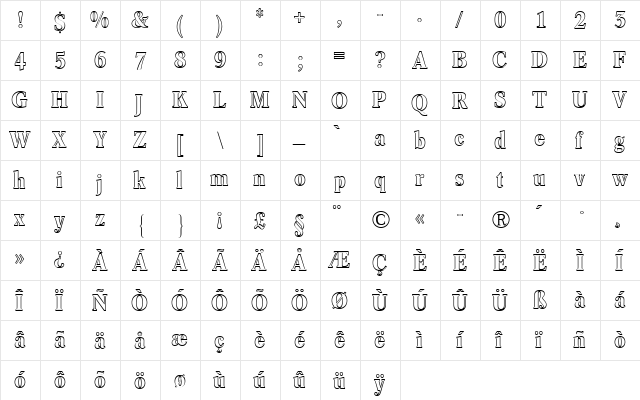
ConcordeCondensedBQ Bold Condensed
Design Context for ConcordeCondensedBQ Typeface
ConcordeCondensedBQ takes a measured approach to typography — its balanced proportions and neutral character make it a reliable workhorse for both digital and print work. Its bold stroke weight gives it real presence on the page. Its narrow stance lets it pack a punch even in space-constrained designs.